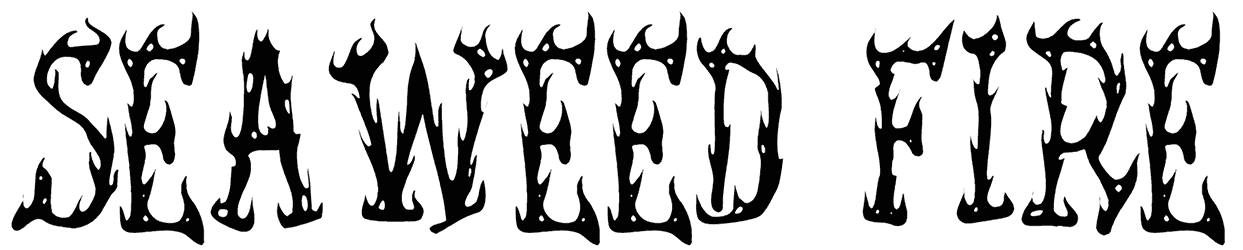
Seaweed Fire AOE Font
Designed byAstigmatic One Eye Typographic Institute
Finding a suitable font for designing high-end graphic content, such as covers, illustrations, product packaging, web pages, and stickers, is a time-consuming task. We offer you a solution to save your precious time and energy by recommending a fire font like Seaweed Fire AOE.
Adding a natural symbol like the flame of fire to its characters can lead to a sense of dread, buzz, fierceness, or risk-taking.